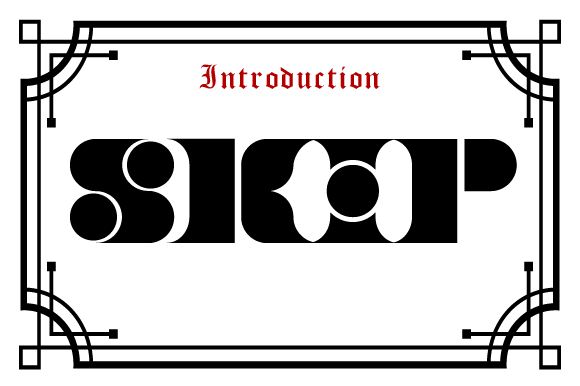
Unleash the Power of Single Initials with Skip Font - The Ultimate Display Typeface for Unforgettable Designs
In a world clamoring for attention, standing out is an art form. Your designs need a voice that commands attention, a visual symphony that captivates audiences and leaves an indelible mark. Enter Skip Font, a transformative display typeface designed to turn single initials into awe-inspiring statements.
Skip Font is not just a font; it's a creative force, an artistic tool that empowers you to transform ordinary letters into extraordinary icons. Its massive and imposing presence commands attention, demanding to be seen, felt, and remembered. Whether you're a graphic designer seeking to craft bold and impactful logos, a web designer seeking to create stunning headlines that leap off the screen, or an artist seeking to infuse your work with a touch of grandeur, Skip Font is your ultimate companion.
With Skip Font, you'll unlock a world of creative possibilities, transforming mundane letters into symbols of power, elegance, and intrigue. Use it to create mesmerizing titles that captivate, banners that demand attention, or initial designs that leave a lasting impression. The possibilities are endless, and only limited by the boundaries of your imagination.
Skip Font is more than just a collection of glyphs; it's an invitation to explore the extraordinary, to break free from the mundane and embrace the remarkable. As a graphic designer, you'll find in Skip Font a partner that elevates your designs, transforming them into works of art. As a web designer, you'll discover a font that breathes life into your creations, making them dynamic and impossible to ignore. As an artist, you'll uncover a medium that amplifies your vision, allowing you to express your creativity with unparalleled impact.
Join the ranks of creative professionals who have harnessed the power of Skip Font to create designs that resonate. Let your work speak volumes, not just with words, but with the sheer visual force of Skip Font. Experience the transformative power of a font that turns single initials into unforgettable statements.